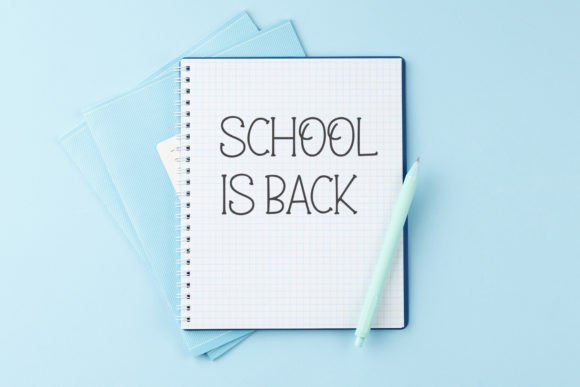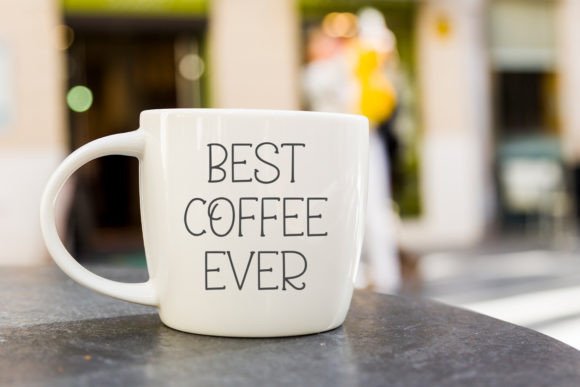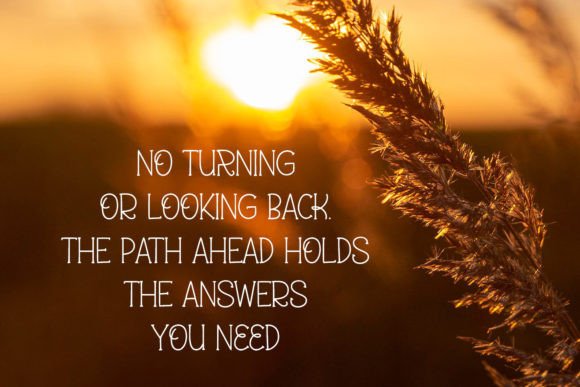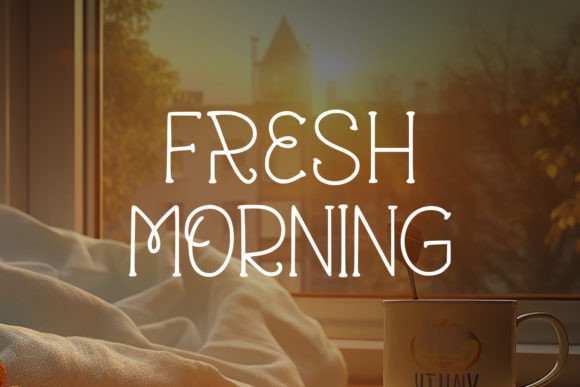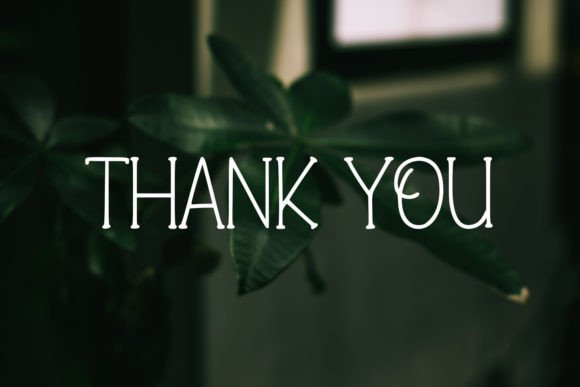
Bremor Font: The Sweet and Friendly Serif Font for Your Design Needs
Are you a designer or crafter looking for a font that can add a touch of sweetness and friendliness to your projects? Look no further than Bremor Font! This beautiful serif font is perfect for a wide range of designs, from invitations and greeting cards to logos and branding materials. In this article, we’ll take a closer look at Bremor Font and explore its unique features, uses, and benefits.
What is Bremor Font?
Bremor Font is a sweet and friendly serif font that is designed to bring a touch of warmth and personality to your designs. Its natural and unique style makes it incredibly fitting to a large pool of designs, from modern and minimalist to vintage and whimsical. Whether you’re creating a logo, invitation, or social media graphic, Bremor Font is sure to make your project stand out.
Unique Features of Bremor Font
So, what makes Bremor Font so special? Here are just a few of its unique features:
- Serif style: Bremor Font features a classic serif style that adds a touch of elegance and sophistication to your designs.
- Sweet and friendly feel: The font has a warm and approachable feel that’s perfect for designs that need to convey a sense of friendliness and approachability.
- Natural and unique style: Bremor Font has a distinctive style that’s both natural and unique, making it easy to stand out from the crowd.
- Versatile: This font is incredibly versatile and can be used for a wide range of designs, from print materials to digital projects.
Uses for Bremor Font
Bremor Font is perfect for a wide range of design projects, including:
- Invitations and greeting cards: Add a touch of sweetness and elegance to your invitations and greeting cards with Bremor Font.
- Logos and branding materials: Use Bremor Font to create a unique and memorable logo or branding materials that reflect your brand’s personality.
- Social media graphics: Bremor Font is perfect for social media graphics, including Facebook posts, Instagram stories, and Twitter headers.
- Packaging and product design: Use Bremor Font to add a touch of personality to your packaging and product design.
Benefits of Using Bremor Font
So, why should you choose Bremor Font for your design projects? Here are just a few benefits:
- Easy to read: Bremor Font is incredibly easy to read, even at small sizes.
- Unique and memorable: Bremor Font is sure to make your designs stand out and be remembered.
- Versatile: This font can be used for a wide range of designs, from modern and minimalist to vintage and whimsical.
- Time-saving: With Bremor Font, you can create professional-looking designs in no time.
Tips for Using Bremor Font
Here are a few tips for getting the most out of Bremor Font:
- Experiment with different sizes and colors: Bremor Font looks great in a variety of sizes and colors, so don’t be afraid to experiment and find the perfect combination for your design.
- Pair with other fonts: Bremor Font pairs well with a variety of other fonts, so try pairing it with a sans-serif font for a modern look or a script font for a more elegant feel.
- Use it consistently: To create a cohesive look, use Bremor Font consistently throughout your design.
In conclusion, Bremor Font is a sweet and friendly serif font that’s perfect for a wide range of design projects. Its natural and unique style makes it incredibly fitting to a large pool of designs, and its versatility and ease of use make it a great choice for designers and crafters of all levels. So why wait? Give Bremor Font a try today and see the difference it can make in your designs!